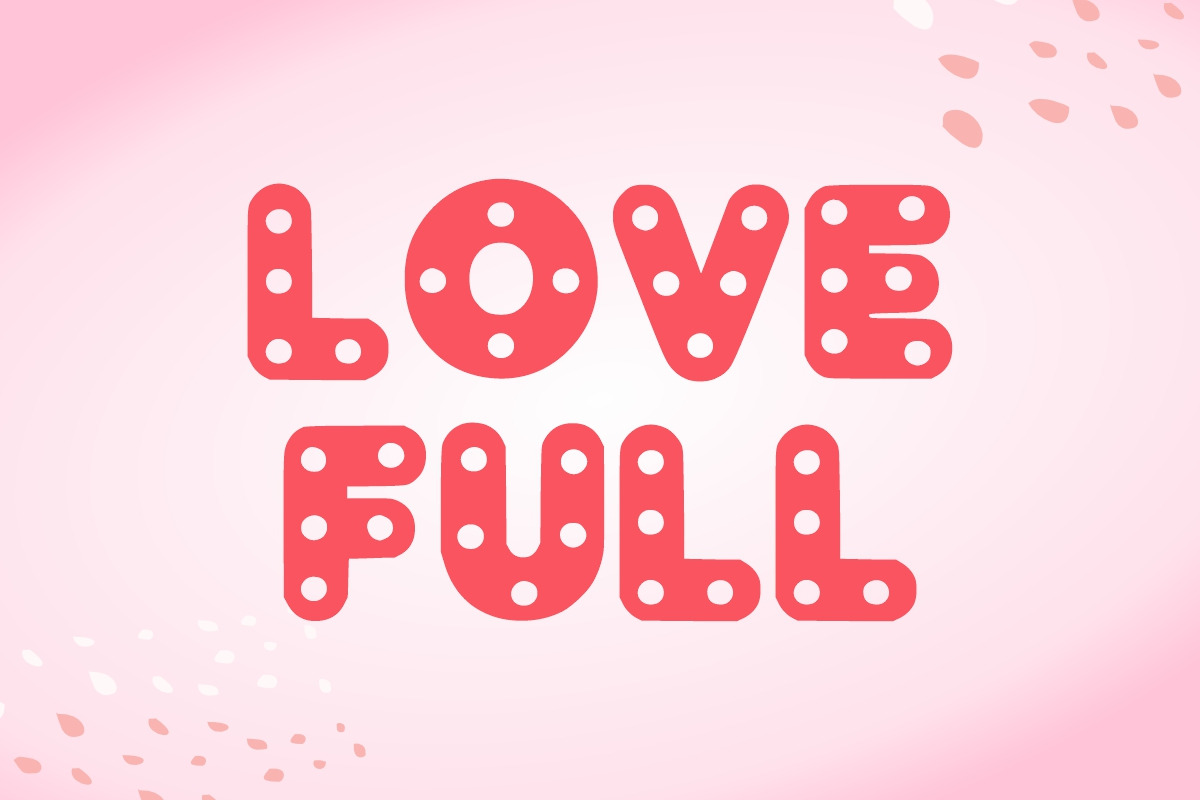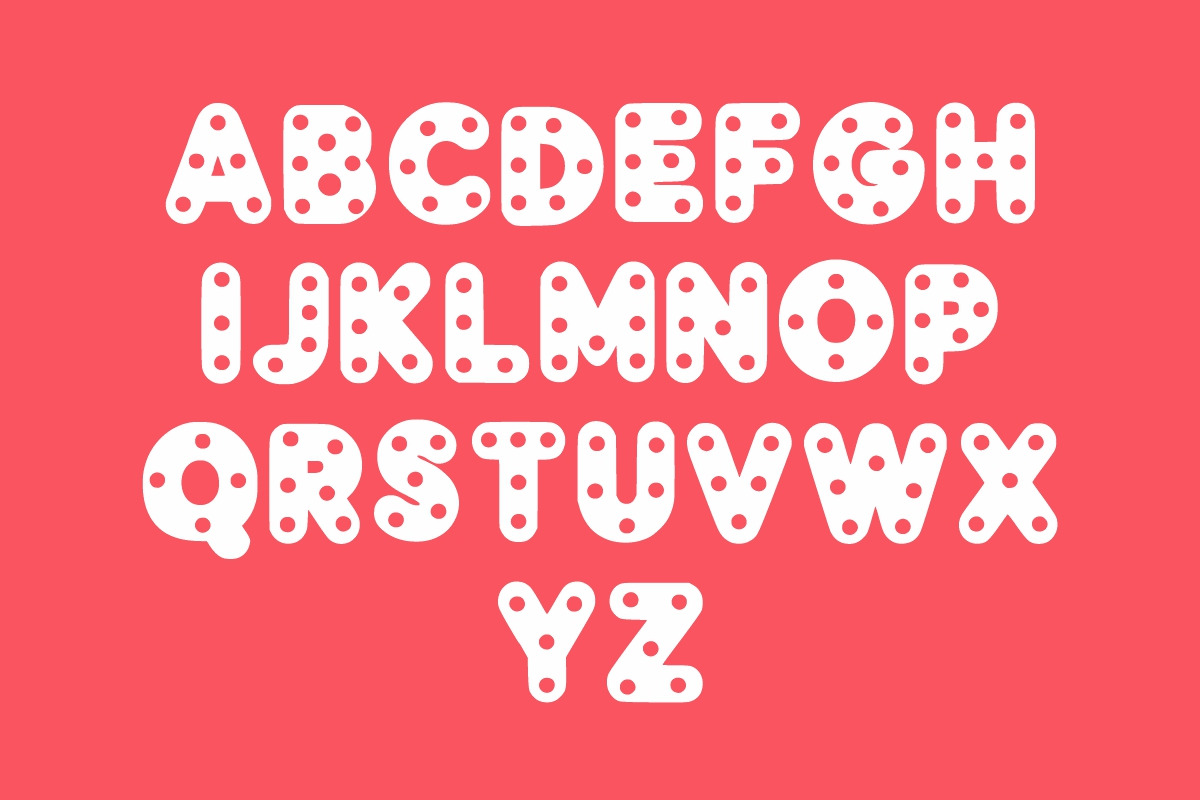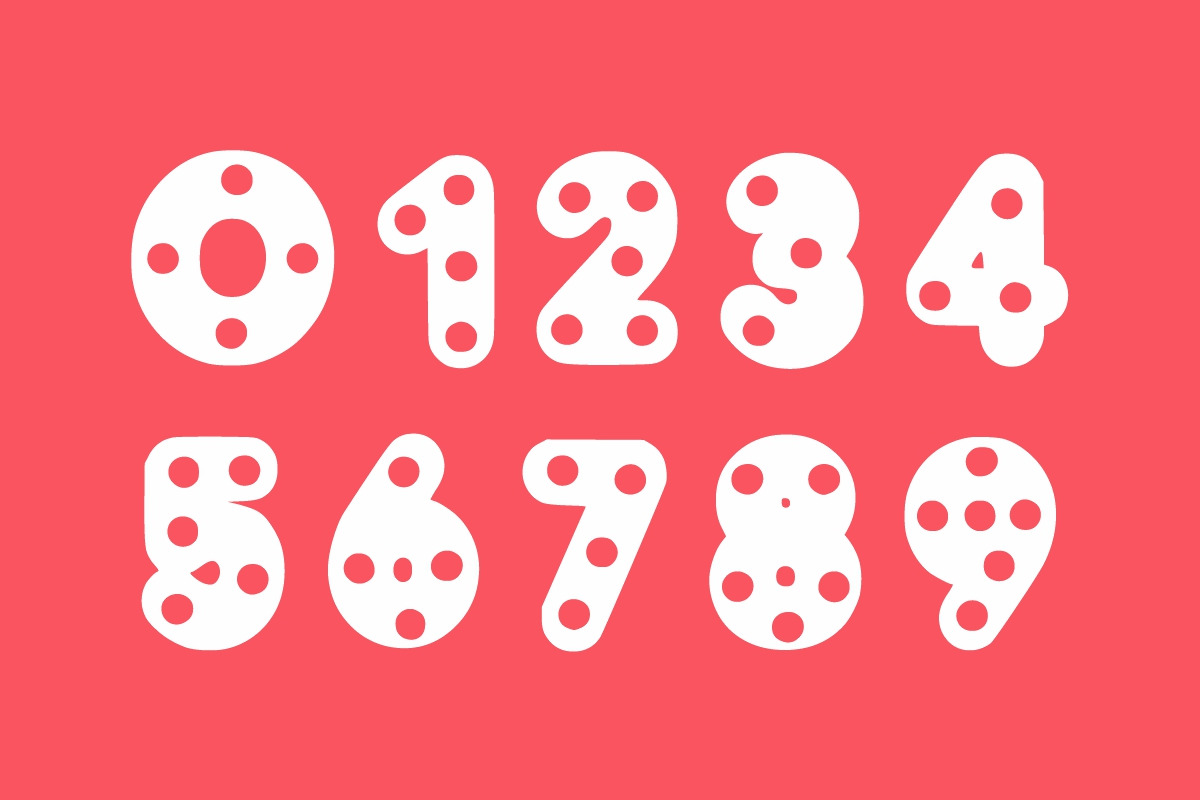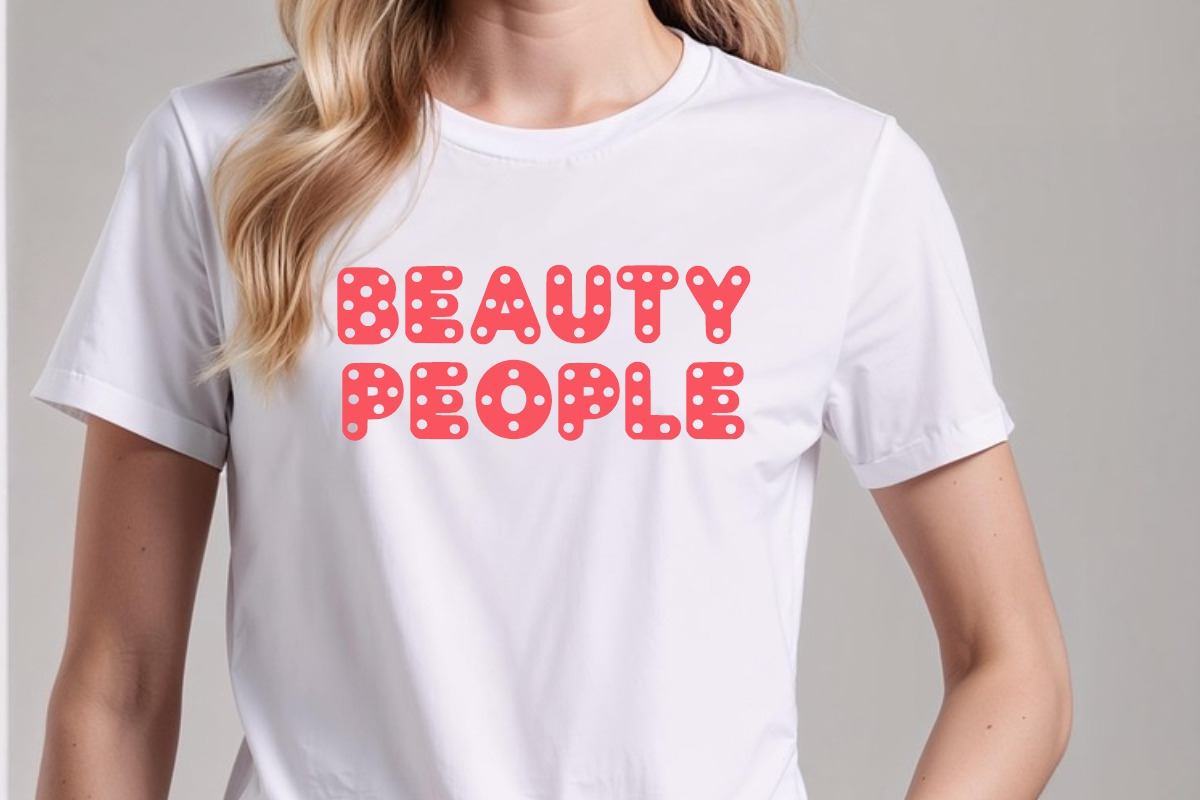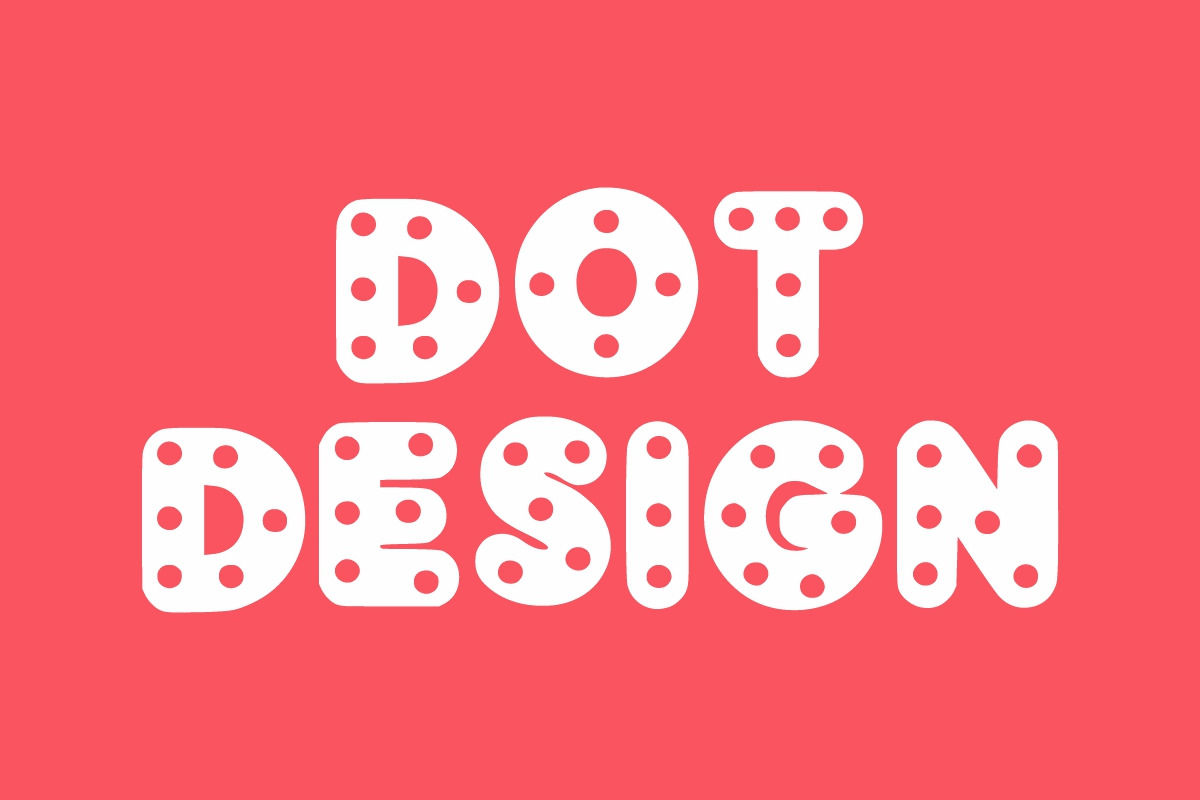
Dotty Bubble
Dotty Bubble is a dot bubble display font. Cartoon font, This easy-to-read typeface conveys impeccable friendliness, and it is perfect for games. Whether you’re using it for crafts, digital design, presentations, or greeting cards, this font has the potential to become your favorite go-to font, no matter the occasion!